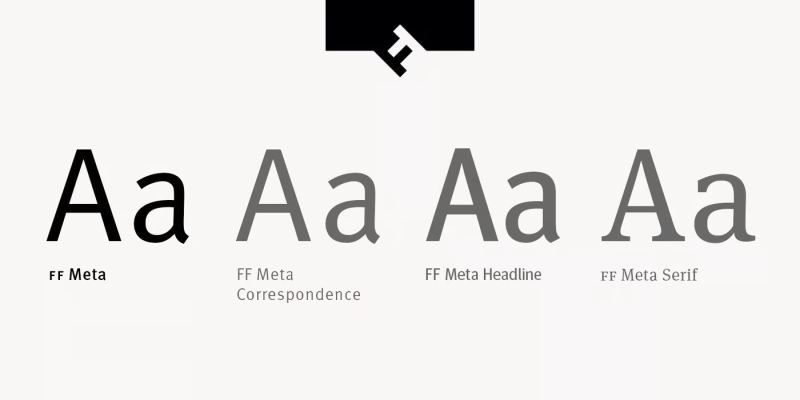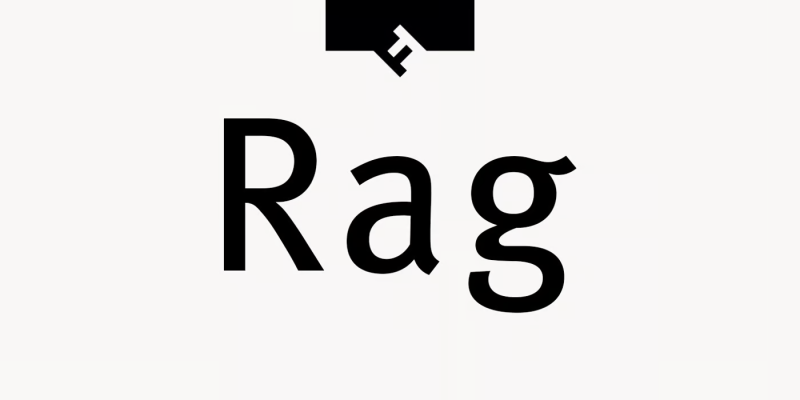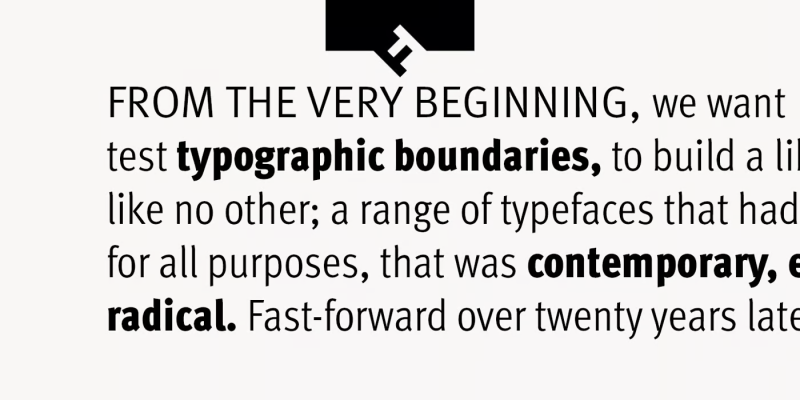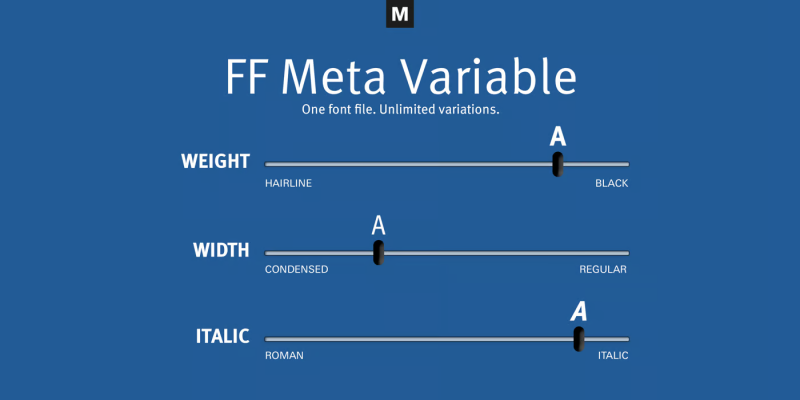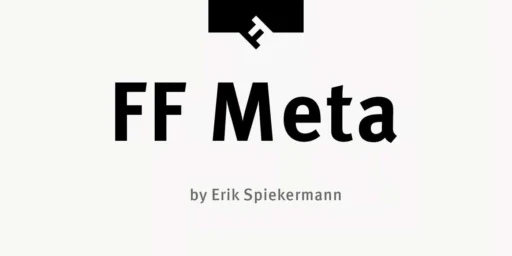
FF Meta Font
FF Meta is the famous sans serif font family by Erik Spiekermann, distributed through FontFont. Designed in the late 1980s for the German Post Office, Deutsche Bundespost, FF Meta is currently one of the most widespread and appreciated fonts in the design field.
The design process of FF Meta font started in the late twentieth century when Spiekermann decided to develop a humanist sans serif that would be in a position to harmonize between the modern and the old fashion designs. This font family was first released back in 1991 by FontFont and was intended to serve as a universal typeface suitable for both printed and electronic media. Spiekermann’s obsession with the level of detail and his focus on readability made him create a font that was easily identifiable for its well-proportioned, fairly open letters and certain humanistic elements.
FF Meta includes 28 different weights, from Hairline to Black. These weights are provided in two styles, Condensed and Normal, with italics for each style.
FF Meta has advanced typographic capabilities, including an array of highly advanced typographic features. This encompasses the use of ligatures which help in creating smooth letter connections and small caps which provide an aesthetic form of typography in some texts. It also has alternates that add more options for the design of characters and case-sensitive forms that change the height of punctuation marks and other marks to match the height of the capital letters.
Moreover, FF Meta contains fraction figures, as well as super- and subscript characters that makes it suitable for technical texts. It has all the figure sets, both oldstyle and lining figures within the typeface family. All of these figure sets are offered in tabular (fixed) and proportional formats, which makes it possible to fine-tune the numerals’ appearance.
FF Meta typeface family does not only accommodate Latin-based languages but also the Cyrillic, Greek, and Hebrew scripts. This allows it to be a versatile font for use in many international design-related tasks due to the fact that it supports many different languages.
It is suitable in numerous designs and applications as a typeface. In print, it is an ideal choice for books, magazines, newspapers, and other kinds of corporate publications because it is quite legible and easy to read. This library offers a great variety of weights, which makes it possible to create flexible and clear structures for the pages of the website. Its humanistic features also give the design a friendly look.
FF Meta is also a good font choice for use in digital media – on websites, in blogs, and in user interfaces- due to its clear font and good rasterization on screens. Due to the variety of weights and styles, designers can develop innovative and efficient interfaces and designs. Furthermore, FF Meta is often suitable in branding and corporate identity projects, thanks to the refined and rather serious font appearance that speaks of trustworthiness.
Where FF Meta Font works best
FF Meta Font stays legible at small sizes, which makes it a strong choice for navigation, buttons and dashboards in web design and app interfaces.
Clean sans serifs like FF Meta Font are the default language of SaaS, fintech and product branding.
What is FF Meta Font good for?
FF Meta Font is a Sans Serif Fonts typeface tagged Condensed, Elegant, Humanist, Modern. It works well for headlines, logos, posters, social media graphics and branding projects that need a distinctive sans serif fonts look.